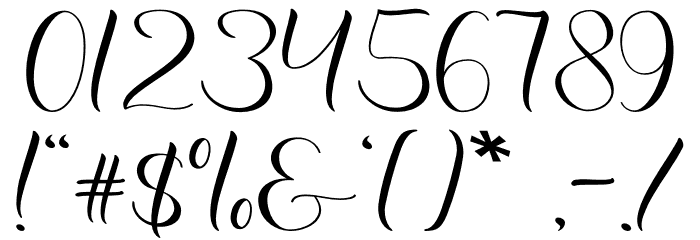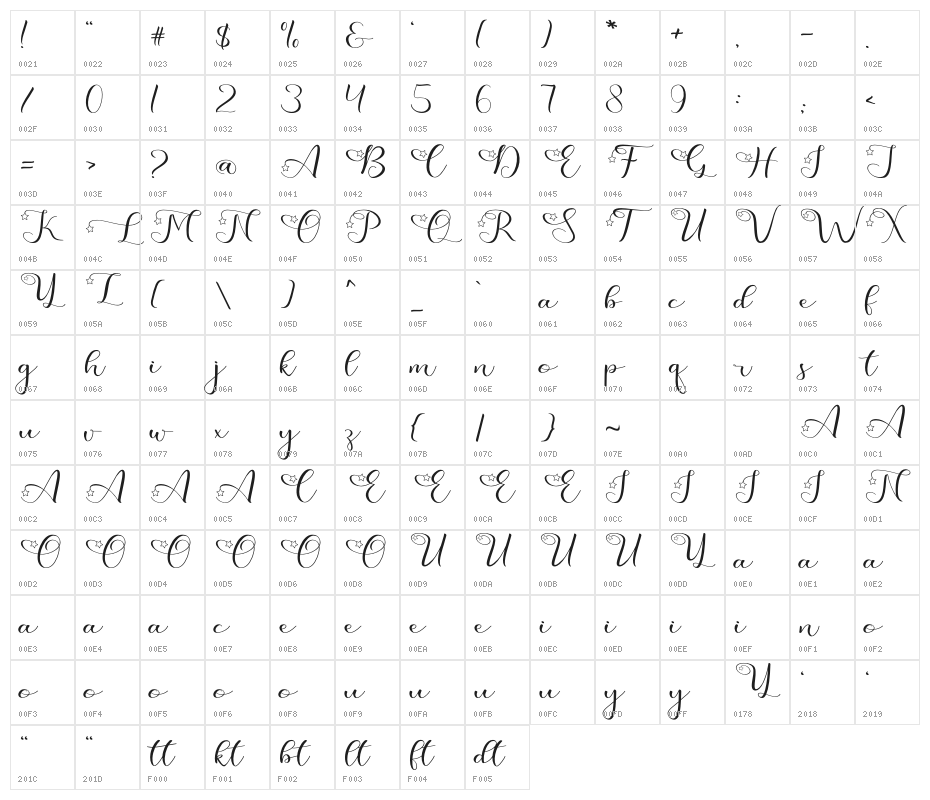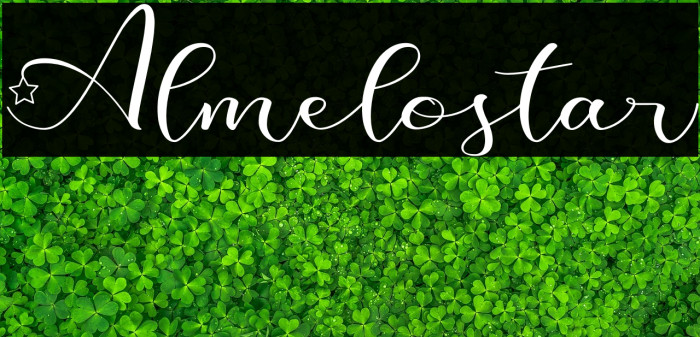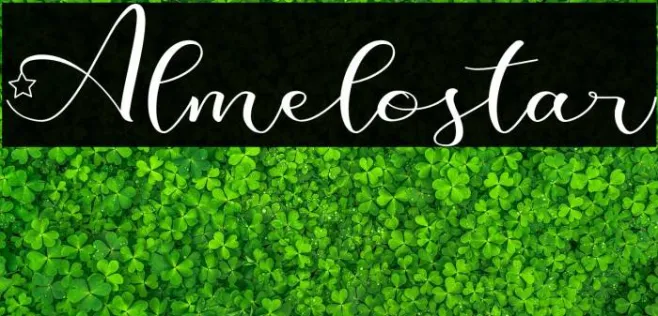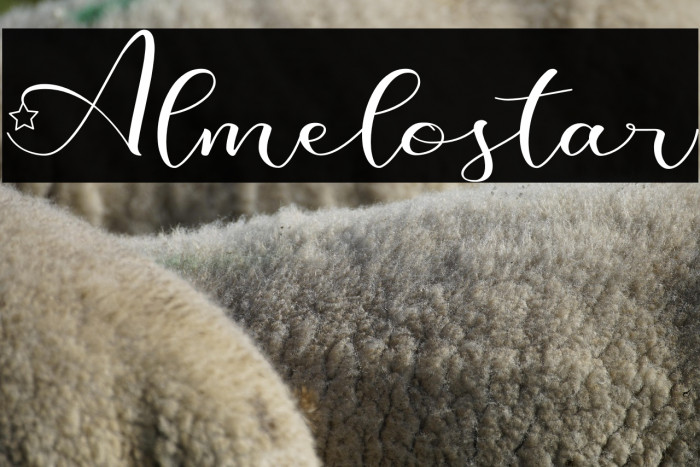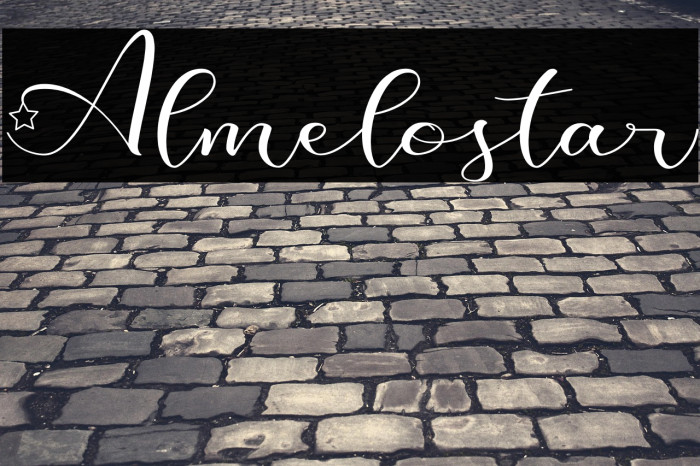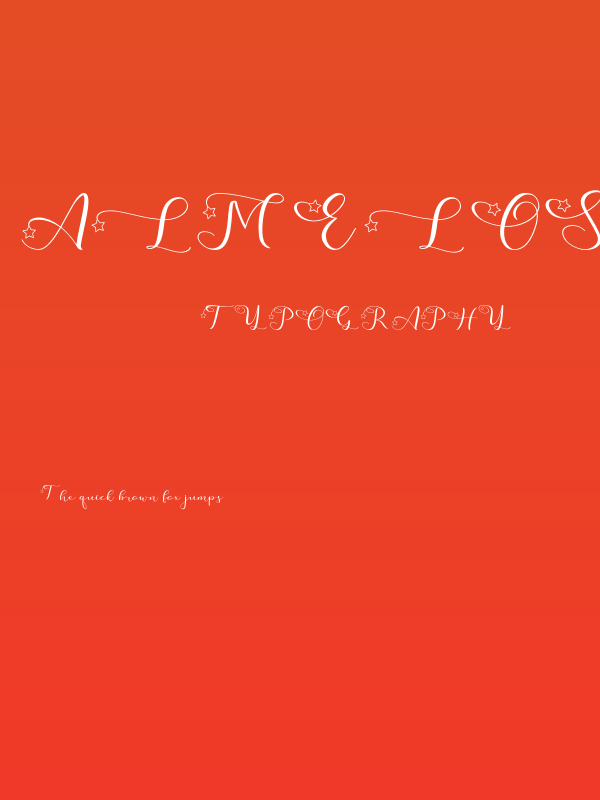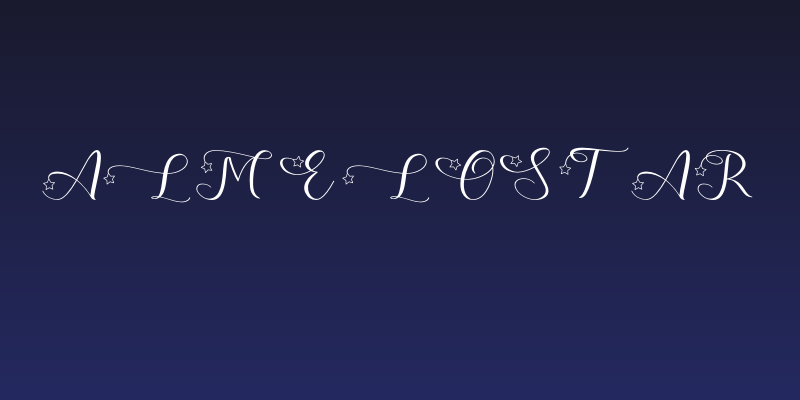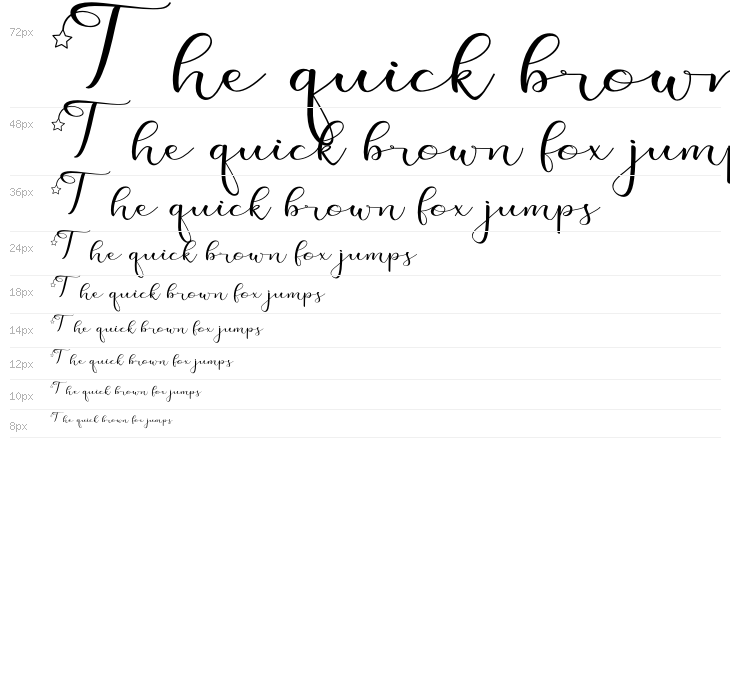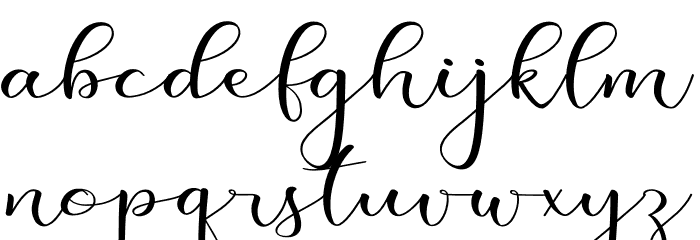
Almelostar Font
Almelostar Description
This elegant script font features a whimsical and decorative style, characterized by its flowing, cursive letters adorned with delicate flourishes. The uppercase letters are particularly ornate, with intricate loops and swirls that add a touch of sophistication and charm. The lowercase letters maintain a smooth and graceful appearance, making them highly legible despite their decorative nature. The numerals are stylishly curved, complementing the overall aesthetic of the font. Special characters are designed with the same attention to detail, ensuring consistency throughout the typeface. This font exudes a sense of elegance and creativity, making it suitable for a variety of artistic and formal applications.
| Use Case | Logos, Invitations, Decorative Text |
| Proposed Projects | Ideal for wedding invitations, greeting cards, branding, and elegant packaging designs. |